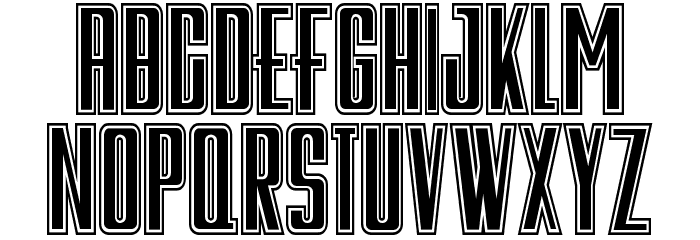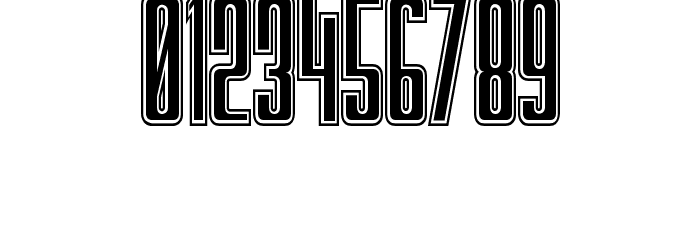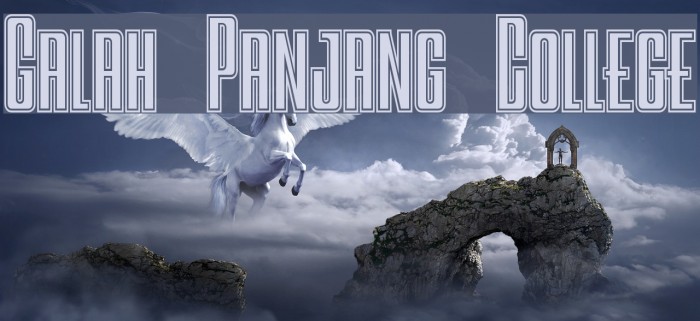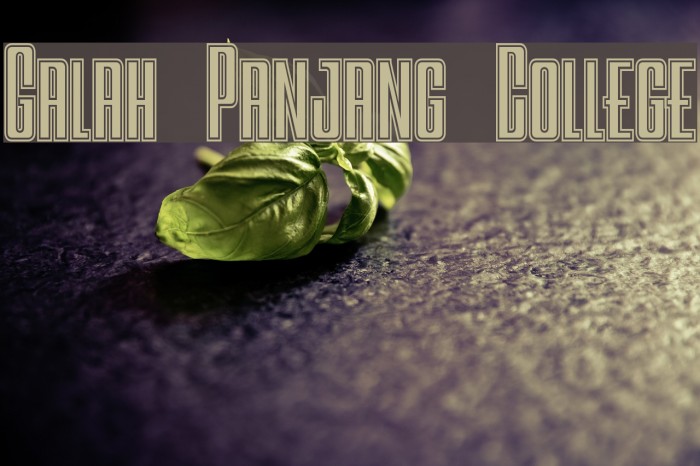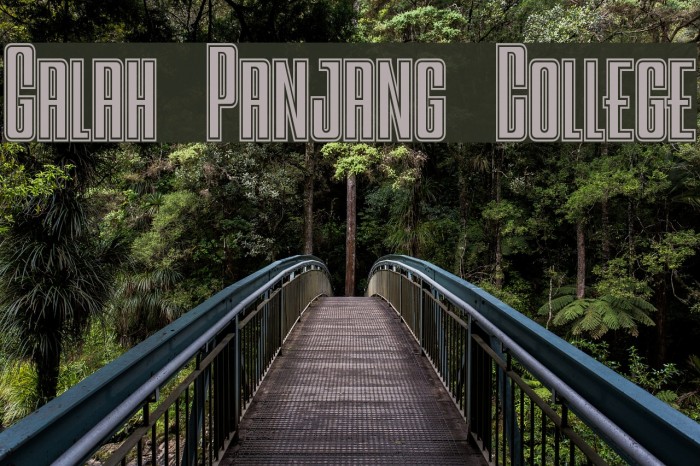
Galah Panjang College Font
This font features a bold and striking design with a double-line outline that creates a strong visual impact. The uppercase letters are tall and narrow, giving a sense of height and elegance. The characters are uniformly spaced, providing a clean and organized appearance. The numbers follow the same style, maintaining consistency throughout. This font is ideal for projects that require a modern and eye-catching look, such as posters, headlines, and branding materials. Its unique outline style sets it apart, making it suitable for creative and artistic applications.
A bold, double-line outlined font with tall, narrow characters for modern designs.
- Proposed Projects: Ideal for posters, headlines, branding, and creative projects requiring a modern look.